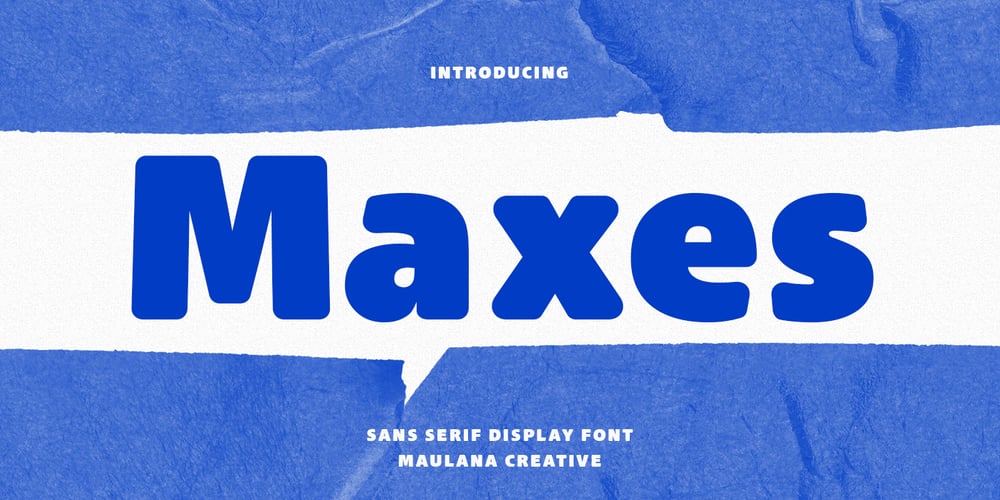
MC Maxes
MC Maxes font
MC Maxes Font Family was designed by Gilang Maulana and published by Maulana Creative. MC Maxes contains 1 styles and family package options. Maxes is a modern Bold sans Display font. Bold stroke, fun character with a bit of ligatures and alternates. To give you an extra creative work. Maxes font support multilingual more than 100+ language. This font is good for logo design, Social media, Movie Titles, Books Titles, a short text even a long text letter and good for your secondary text font with script or serif. Make a stunning work with Maxes font. Cheers, Maulana Creative